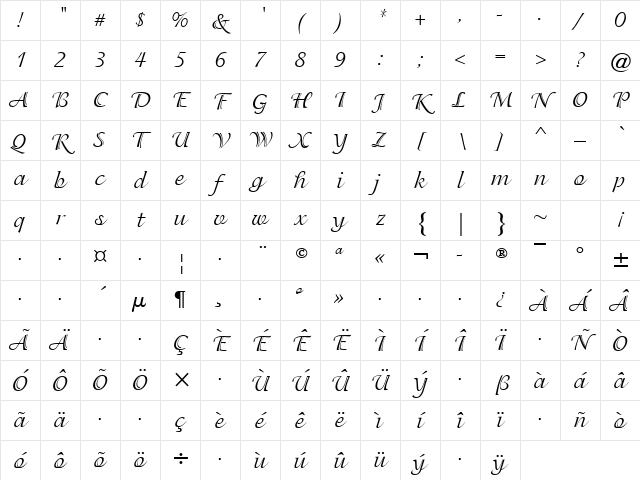
Adorable Regular Free Font
Adorable Regular
Adorable Family
Adorable Regular
Design Context for Adorable
Adorable is a composed and adaptable typeface that performs quietly and consistently across a wide range of design contexts.